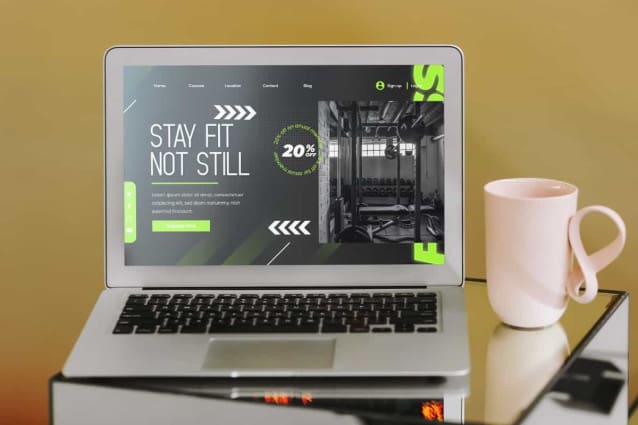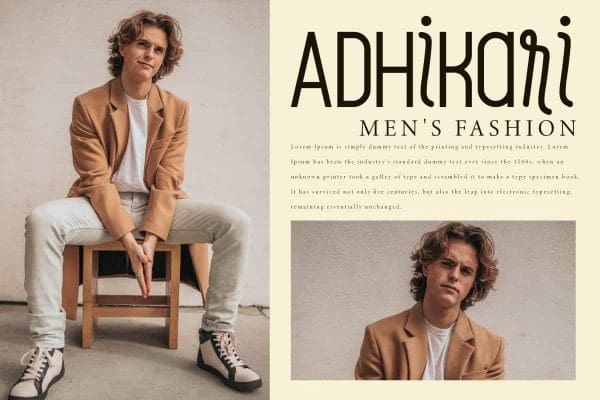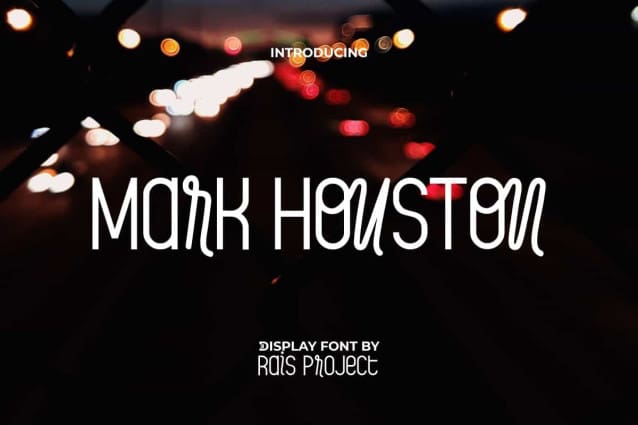
Mark Houston Font
Mark Houston Font is a duo stylish combination display font with two different styles in a font family. This font has a combination of sans serif and handwritten styles that make it look unique in every concept. It will be good for any designs, such as brand image, calendar, cover, custom design, greeting card, invitation, label, poster, product packaging, quote, signage, web, and more!
Mark Houston Font includes a full set of Uppercase and Lowercase Letters with mostly ALL CAPS forms, Numerals, Punctuation, Symbol, and Ligature characters. This modern font will be suitable for various industries, such as accessories, advertisement, event, fashion, florist, photography, printing, publishing, etc.